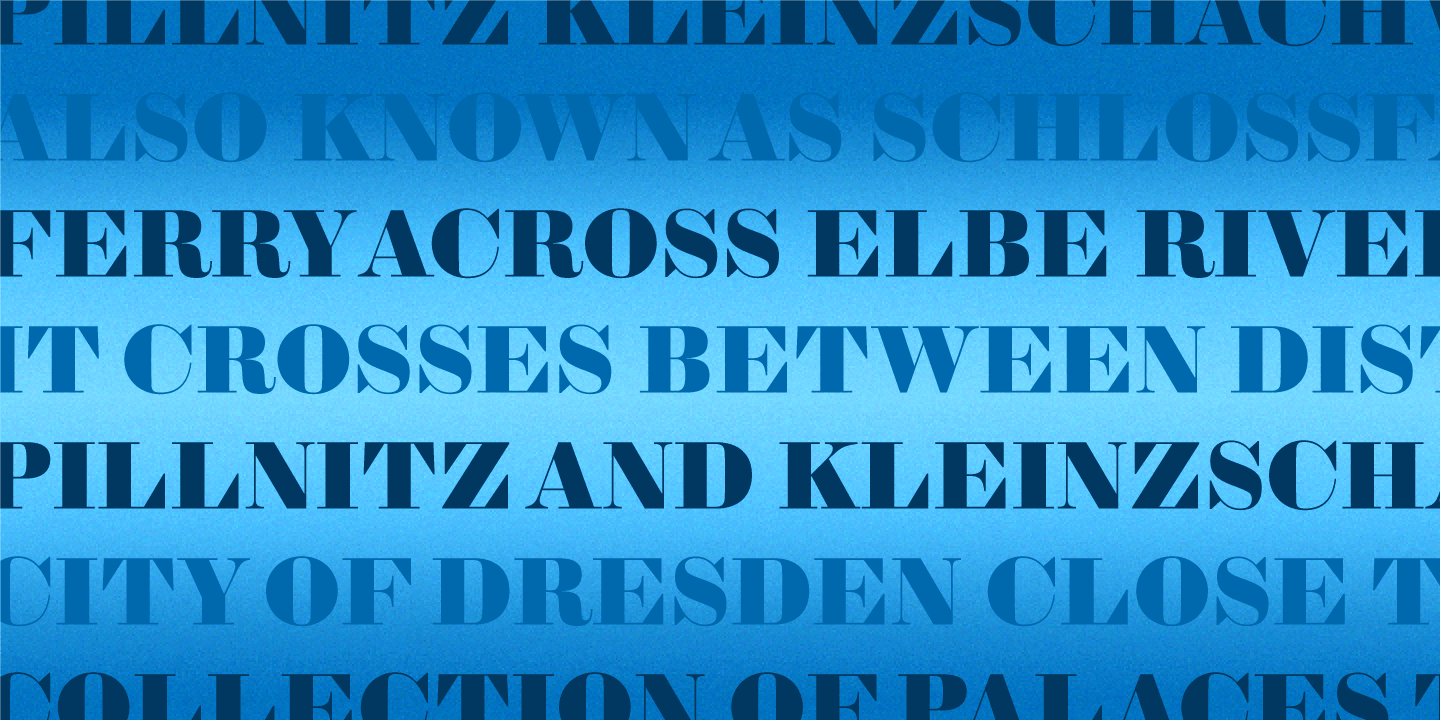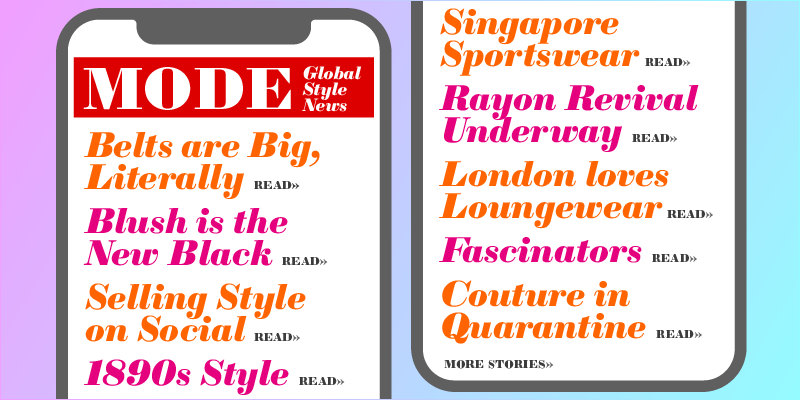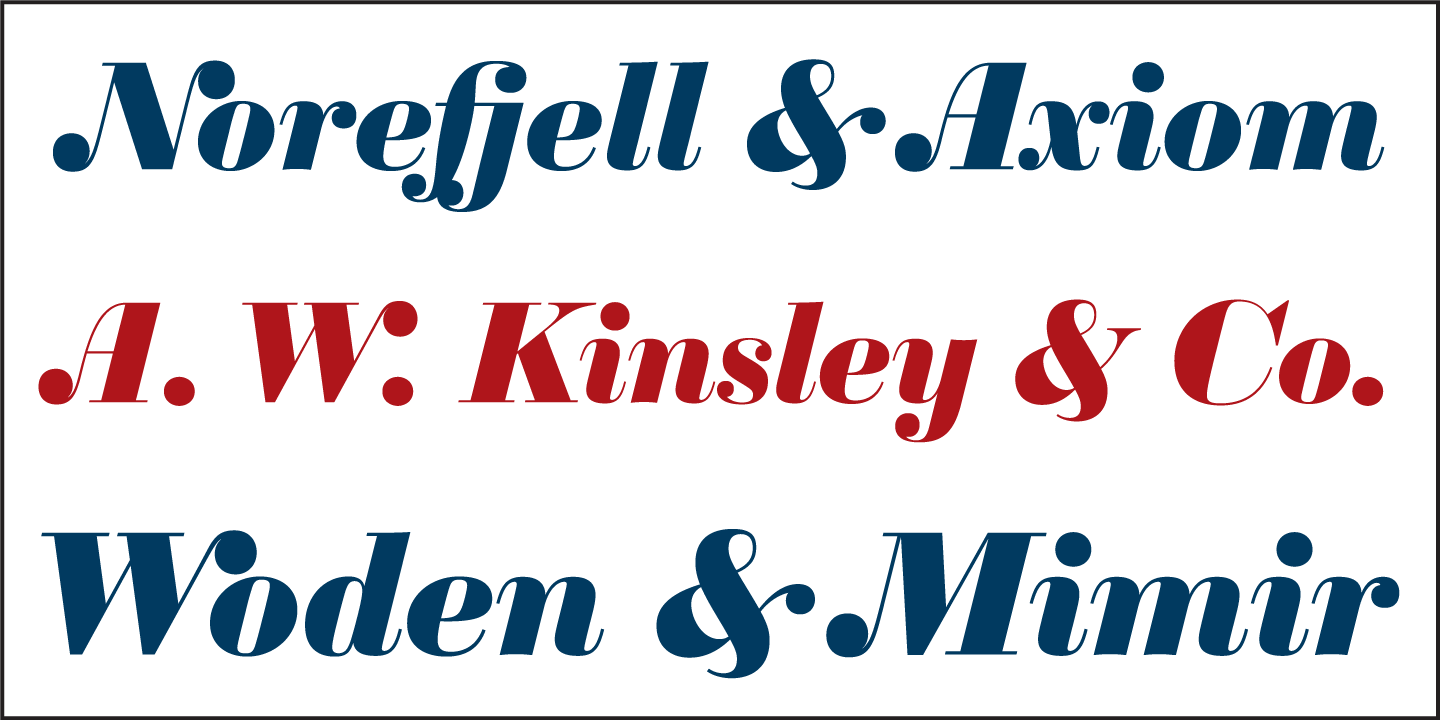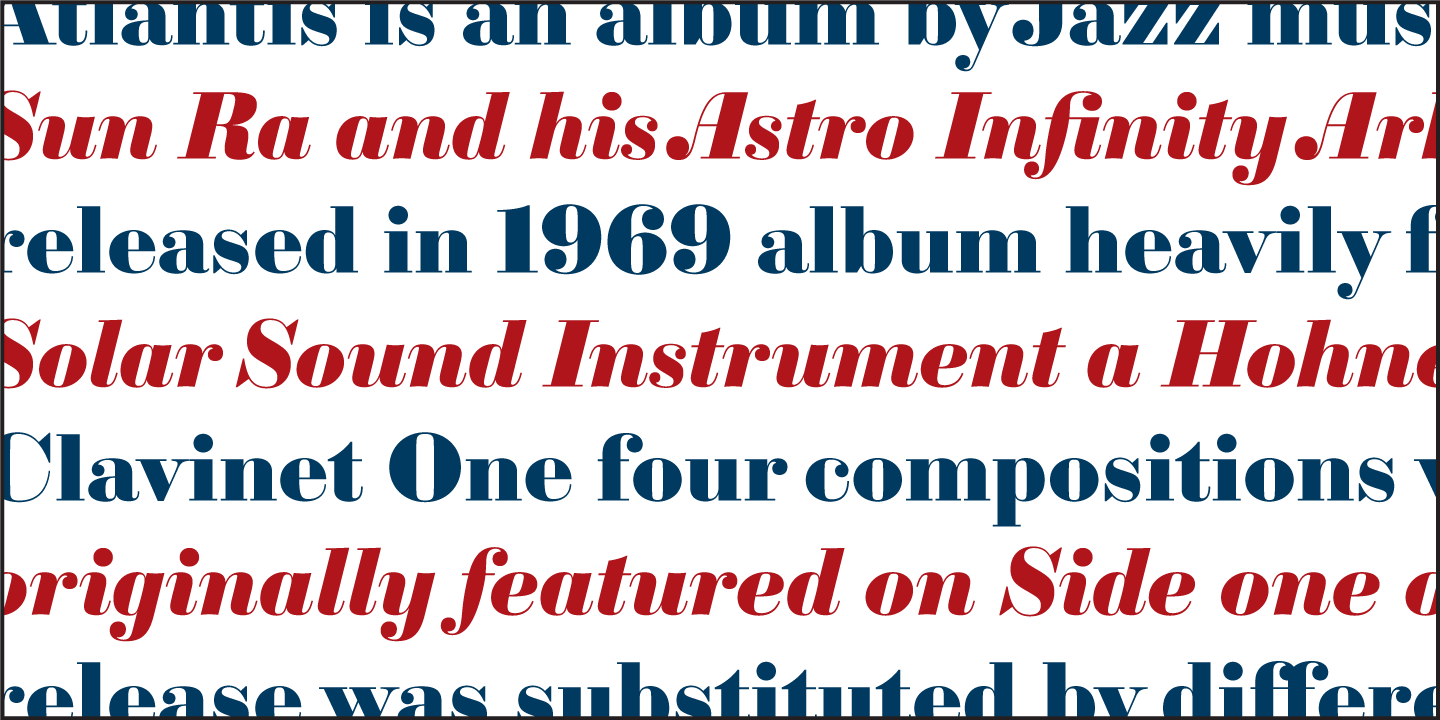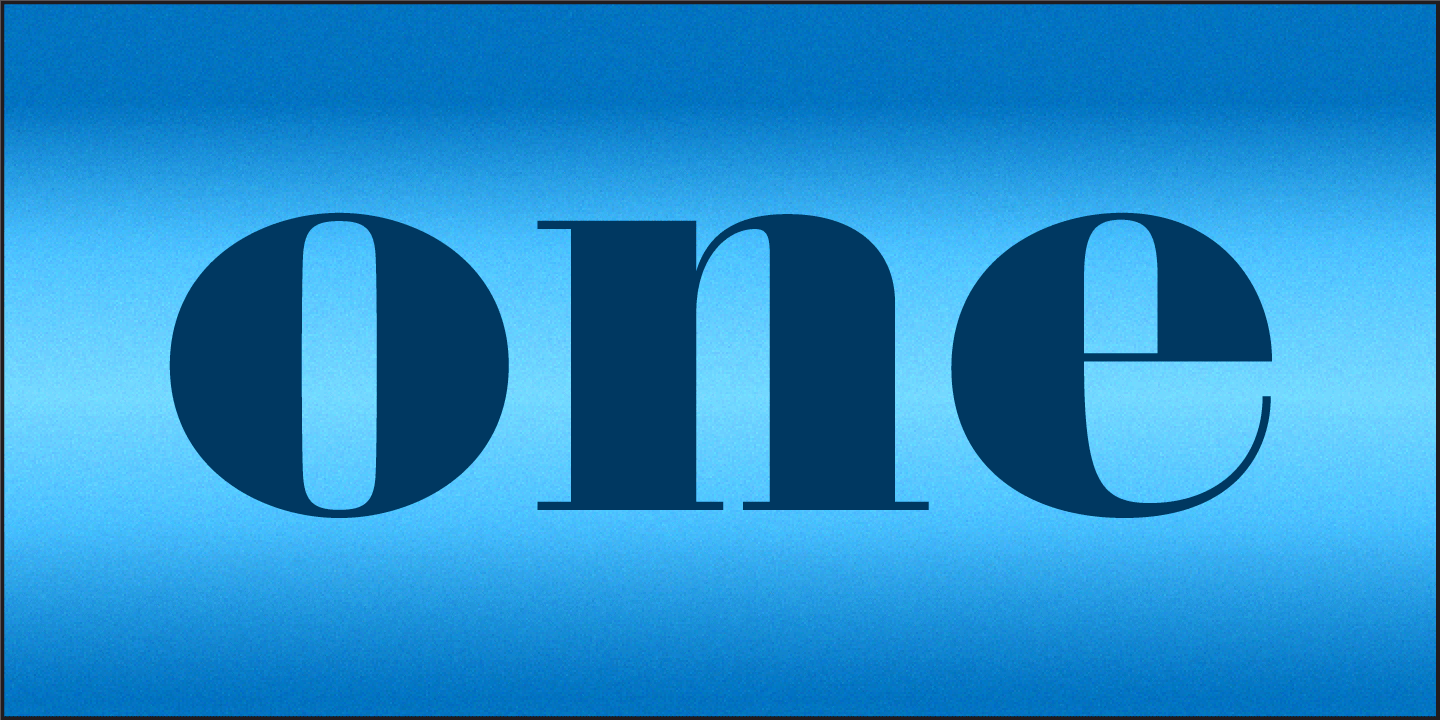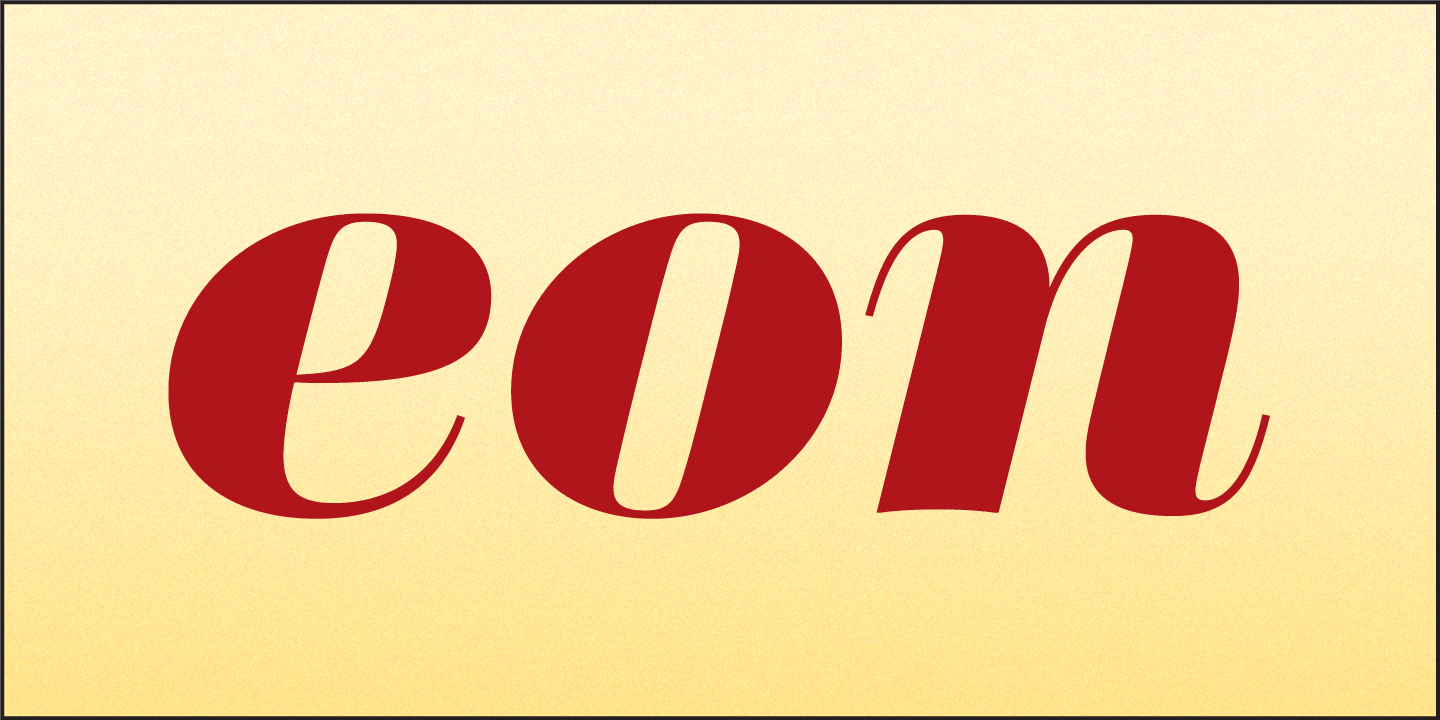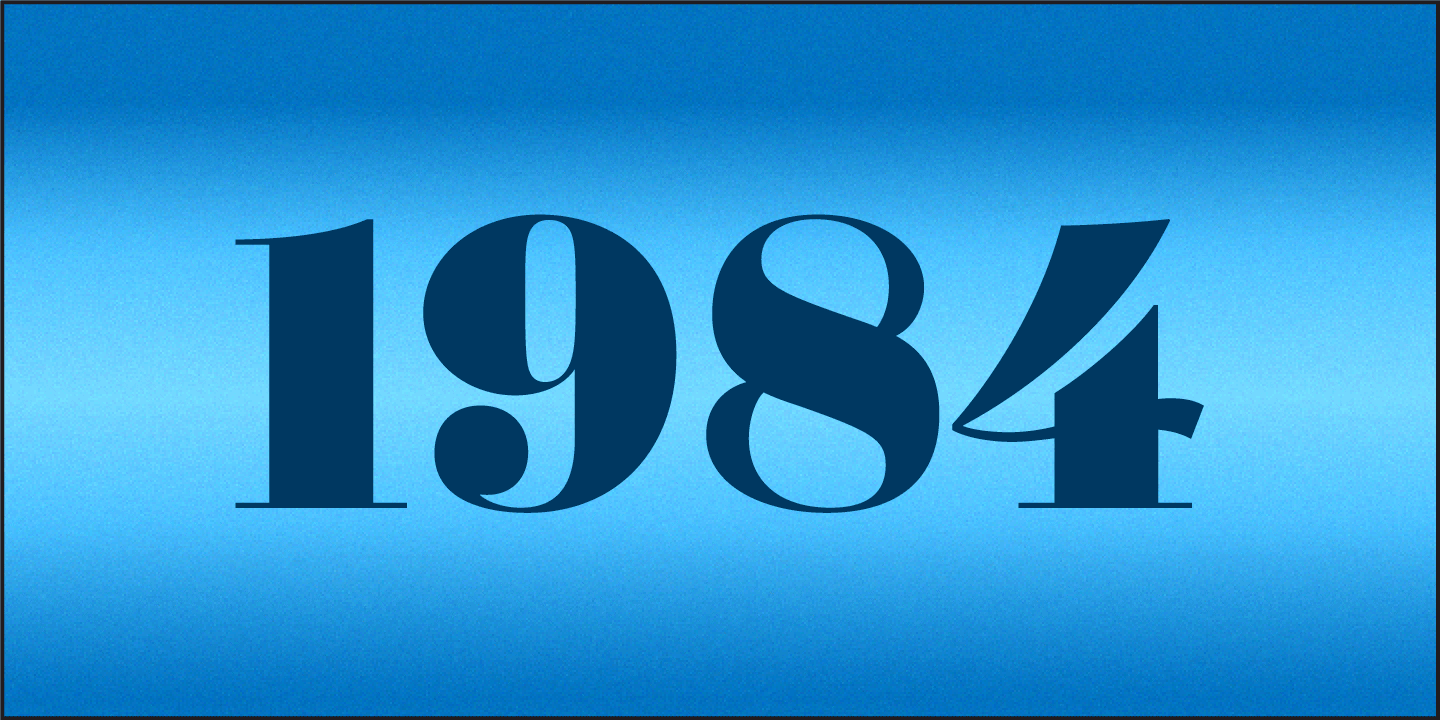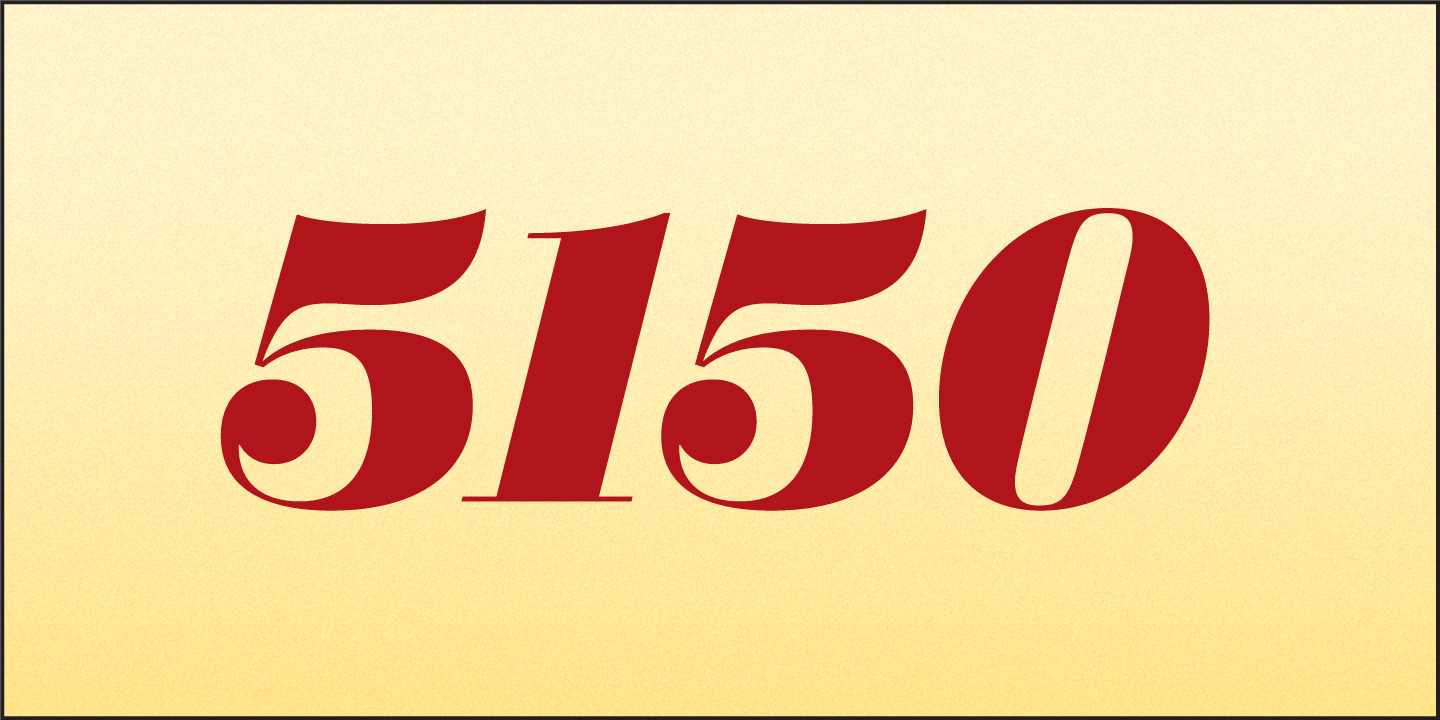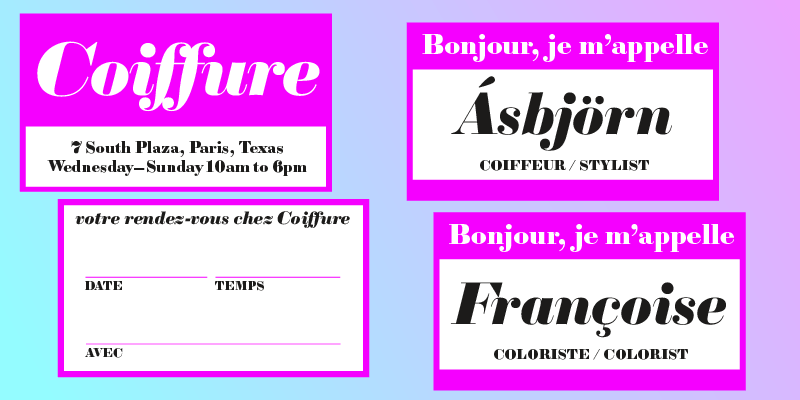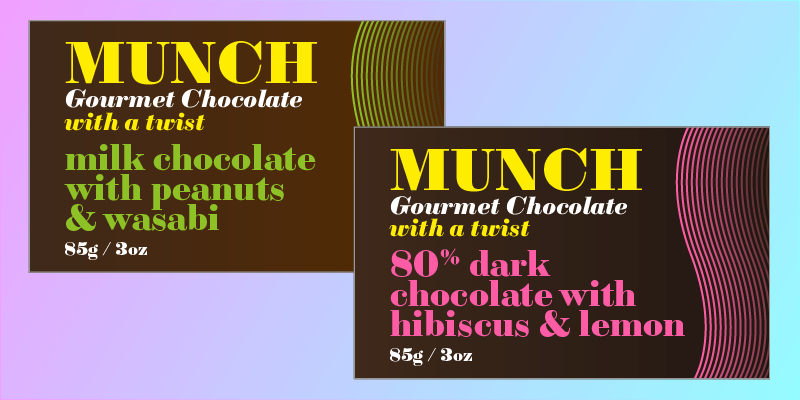
Sybarite
Sybarite is a fat face that works at any size. Capitals with sweeping curves and sharp unbracketed serifs command attention while charming minuscules expose the amiable side of its demeanor.
Sybarite is James Puckett's revival of the fat face type that appears in the 1829 specimen of Alonzo W. Kinsley's Franklin Letter Foundry. Kinsley's was a very short-lived and unprofitable business. It opened in 1825 (some sources say 1829) and ended in 1832 upon Kinsley's death.
High-contrast typefaces like Sybarite have thin hairlines that translate poorly to scalable digital type. A hairline thin enough to remain a hairline at large sizes disappears at smaller sizes. And a hairline serif drawn for small sizes turns into a slab serif at large sizes. Solving this problem requires the creation of optical weights; fonts tuned for a certain size range, just as they existed in the era of metal type.